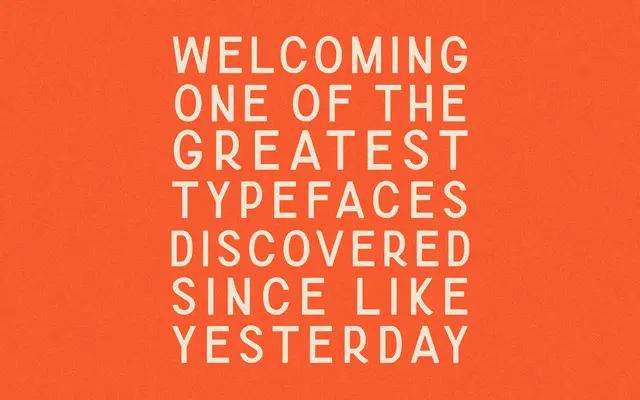
Road Runner
Road Runner specimen from Taylor Penton
A single-weight refined sans with a mild retro character, suited to branding and logo work where clarity and a touch of vintage warmth are needed.
Clean construction and a slightly retro edge give Road Runner a quiet personality that holds up well in logos and packaging without demanding attention. It ships as a single Regular weight with broad Western European language coverage including Icelandic and Welsh, added in a late 2028 update. The glyph set is lean at 128 characters, which keeps the offering focused rather than expansive.
Described as a refined sans with a slightly retro edge, placing it in the grotesque tradition with subtle vintage character rather than strict geometric or humanist construction.